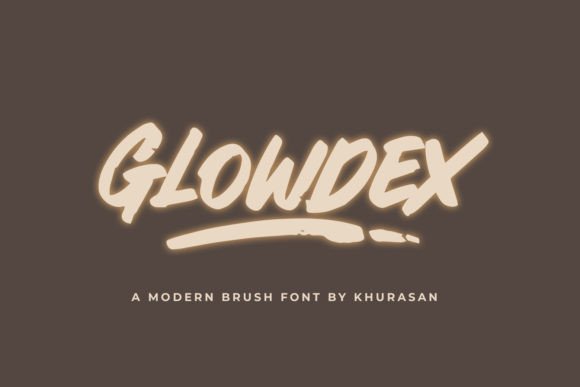
Welcome to a universe of peerless charm, where letters dance with elegance and boldness, shaping words that leave an indelible mark. Let us introduce you to Glowdex, a script font family that is poised to captivate your senses and transform your creative projects into masterpieces.
With its modern and bold brush strokes, Glowdex exudes a timeless appeal that blends seamlessly with contemporary aesthetics. It's the perfect font for those who seek to make a statement, to leave an unforgettable impression through their designs.
Designed with meticulous attention to detail by the talented Khurasan, Glowdex is a font that breathes life into your words. Its vibrant curves and dynamic lines create a visual symphony that dances across the page, captivating the eyes and stirring the emotions.
Whether you're crafting posters that demand attention, logos that exude professionalism, magazines that inspire, book covers that intrigue, or banners that command presence, Glowdex is your ultimate companion. It's a font that adapts effortlessly to a myriad of projects, adding a touch of sophistication and allure to every creation.
Step into the world of Glowdex and discover a font that's as versatile as it is captivating. Let your imagination run wild as you explore the endless possibilities it presents. Unleash your creativity and watch in awe as your designs transform into works of art.
Glowdex, the font that ignites your imagination and sets your designs ablaze. Embrace its brilliance today and embark on a creative journey like no other.